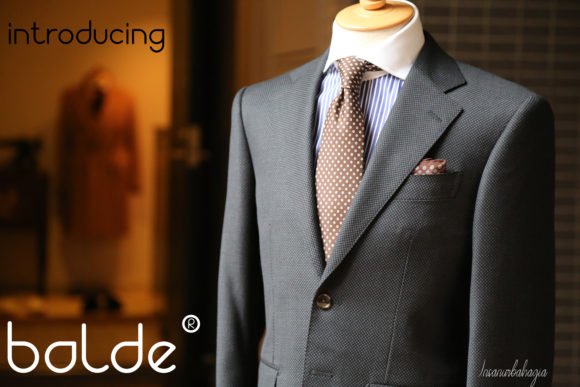
Discover Your Next Design Crush: The Balde Font
Have you ever stared at a blank canvas, waiting for inspiration to strike? It’s that moment when you need a spark to ignite your creativity. For many designers, finding the perfect font is the key to unlocking a stunning design. And, we’re excited to introduce you to the perfect companion – the Balde Font.
This sleek and modern sans serif font is more than just a pretty face. Its versatility makes it the perfect choice for any project, whether you’re designing a logo, brochure, or website. The Balde Font’s clean lines and simple style ensure that your message stands out without overpowering it. Whether you’re a seasoned pro or just starting out, this font is a valuable addition to your design arsenal.
So, what are you waiting for? Fall in love with the Balde Font and discover the endless possibilities it has to offer. With its incredible versatility and style, you’ll be creating spectacular designs in no time.
Balde Font Key Features
- Size: Designed to work well in a range of sizes, from 12pt to 72pt.
- Unique Characteristics: Balde Font features a unique blend of modern and vintage elements, with a distinctive flair and elegance.
- Font Weight: Available in multiple weights, including Light, Regular, Medium, Bold, and Black.
Balde Font Review
As a designer, I was excited to explore the Balde Font, and here’s my honest review.
The Balde Font has a clean and modern aesthetic that would work well for a variety of design projects. Its sans-serif design makes it highly legible and versatile. It also has a wide range of weights and styles, making it easy to customize and adapt to different contexts.
- Highly legible and versatile
- Clean and modern aesthetic
- Wide range of weights and styles
While the Balde Font is a solid choice for many projects, there are a few limitations to consider. It may not be the best choice for projects that require a more playful or decorative font, and it can feel a bit generic in certain contexts. Additionally, the font’s versatility can sometimes make it feel overused or clichéd.
- May not be suitable for playful or decorative projects
- Can feel generic or overused in certain contexts
Overall, the Balde Font is a solid choice for designers who want a clean and modern font that’s easy to work with. While it may not be the most exciting or unique font, it gets the job done and is a reliable choice for many design projects.
Practical Application Guide for Balde Font
Tips for Getting the Most Out of Balde Font
To get the most out of Balde Font, consider the following tips:
- Use it in bold or italic styles to add emphasis to your text.
- Pair it with other fonts to create a unique and interesting font combination.
Some common use cases for Balde Font include:
- Headlines and titles.
- Body text in creative projects.
- Branding and logos.
- Infographics and
Alternatives to Balde Font
Montserrat is a sans-serif font designed by Julieta Ulanovsky. It’s a great alternative to Balde Font when you need a modern and sleek look. Montserrat has a more geometric feel and is perfect for digital interfaces, headings, and titles.
Comparison to Balde Font: Montserrat is more geometric and modern, while Balde Font is more rounded and playful. Montserrat is a better choice when you need a clean and minimalist look.
Avenir Next
Avenir Next is a sans-serif font designed by Jean François Porchez. It’s a versatile font that works well in both digital and print media. Avenir Next has a more elegant and sophisticated feel, making it a great alternative to Balde Font for luxury and high-end designs.
Comparison to Balde Font: Avenir Next is more elegant and sophisticated, while Balde Font is more playful and rounded. Avenir Next is a better choice when you need a high-end and luxurious look.
Open Sans is a sans-serif font designed by Steve Matteson. It’s a highly legible font that works well in digital interfaces, headings, and titles. Open Sans has a clean and simple feel, making it a great alternative to Balde Font for everyday designs.